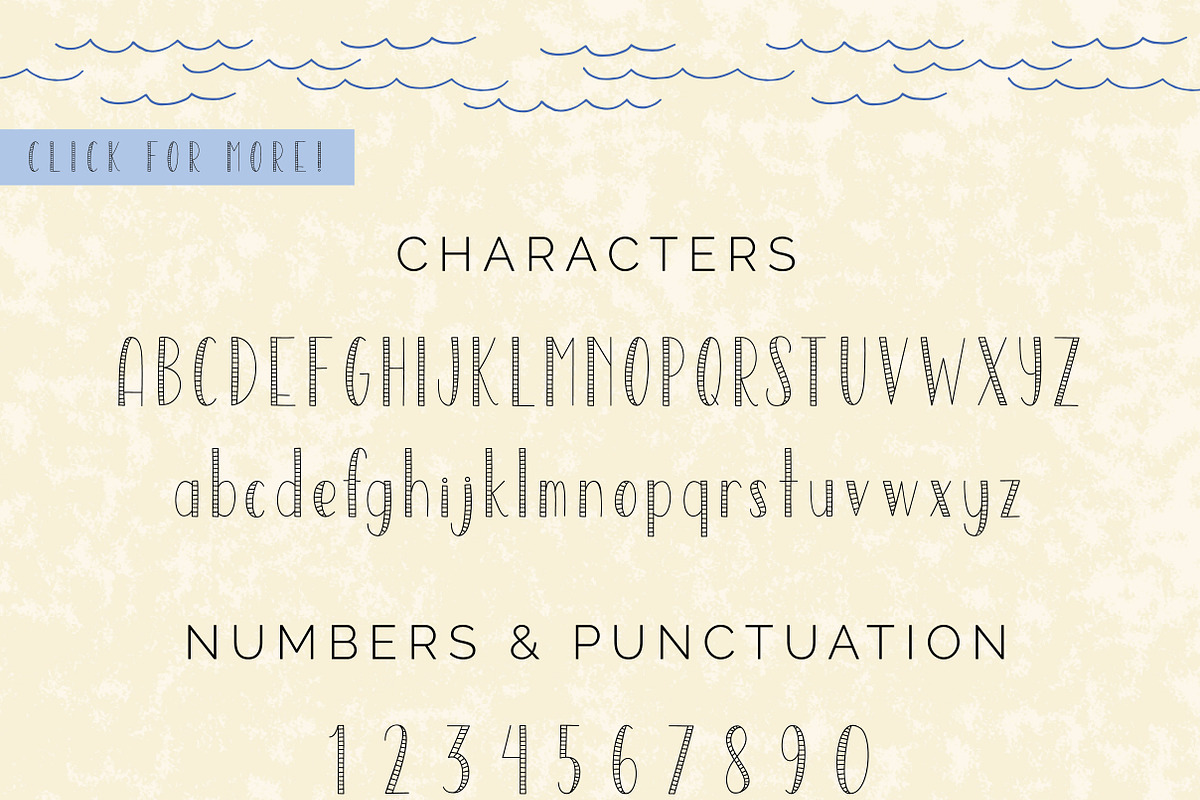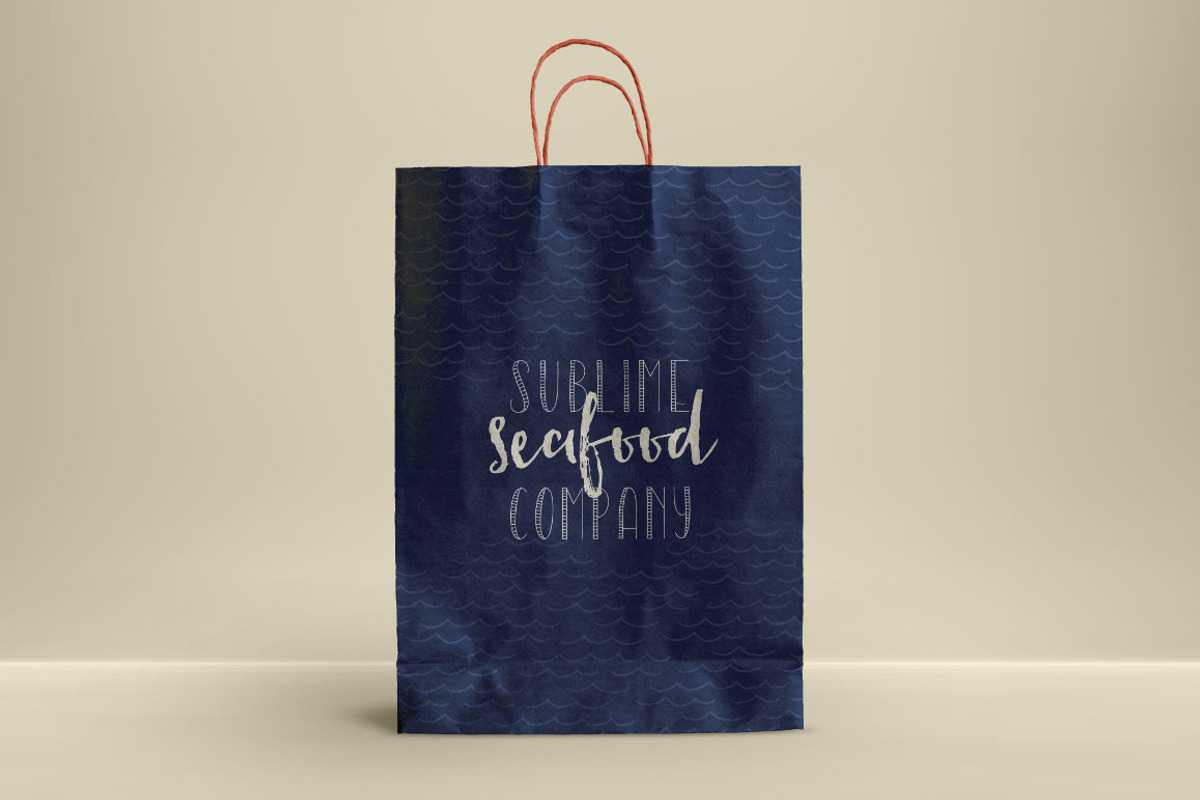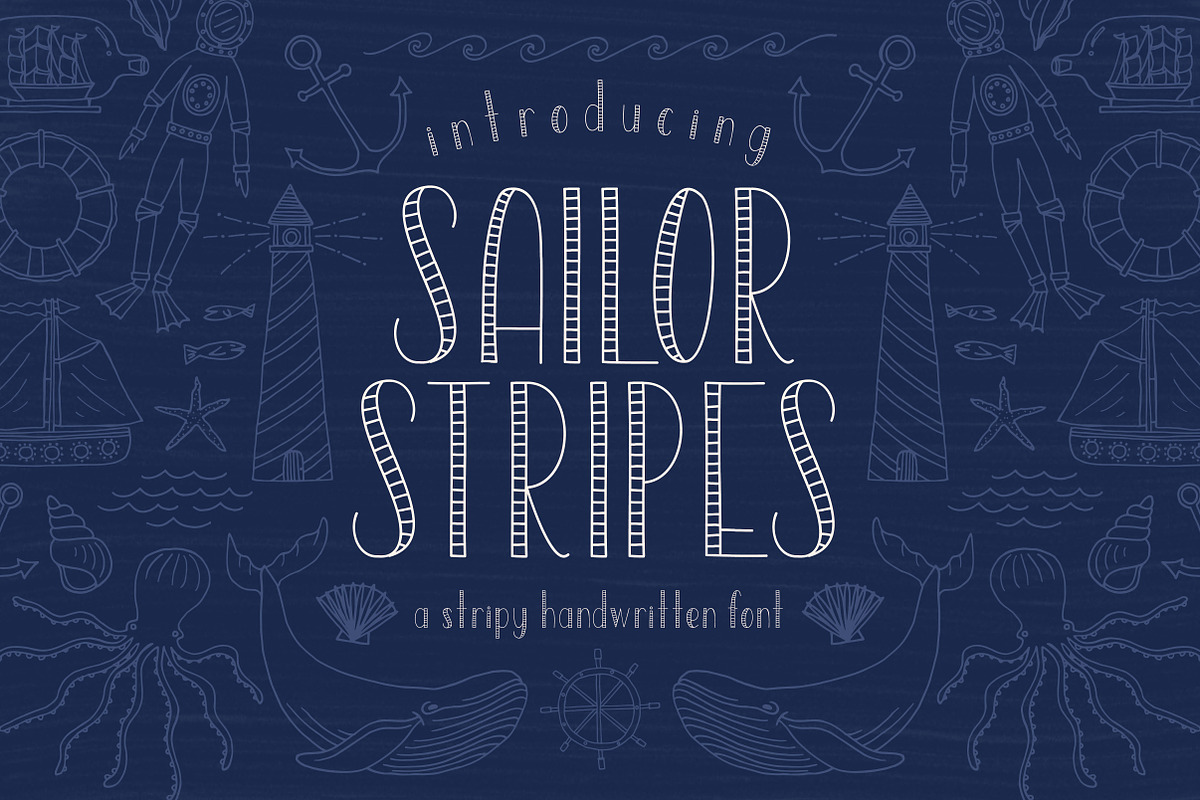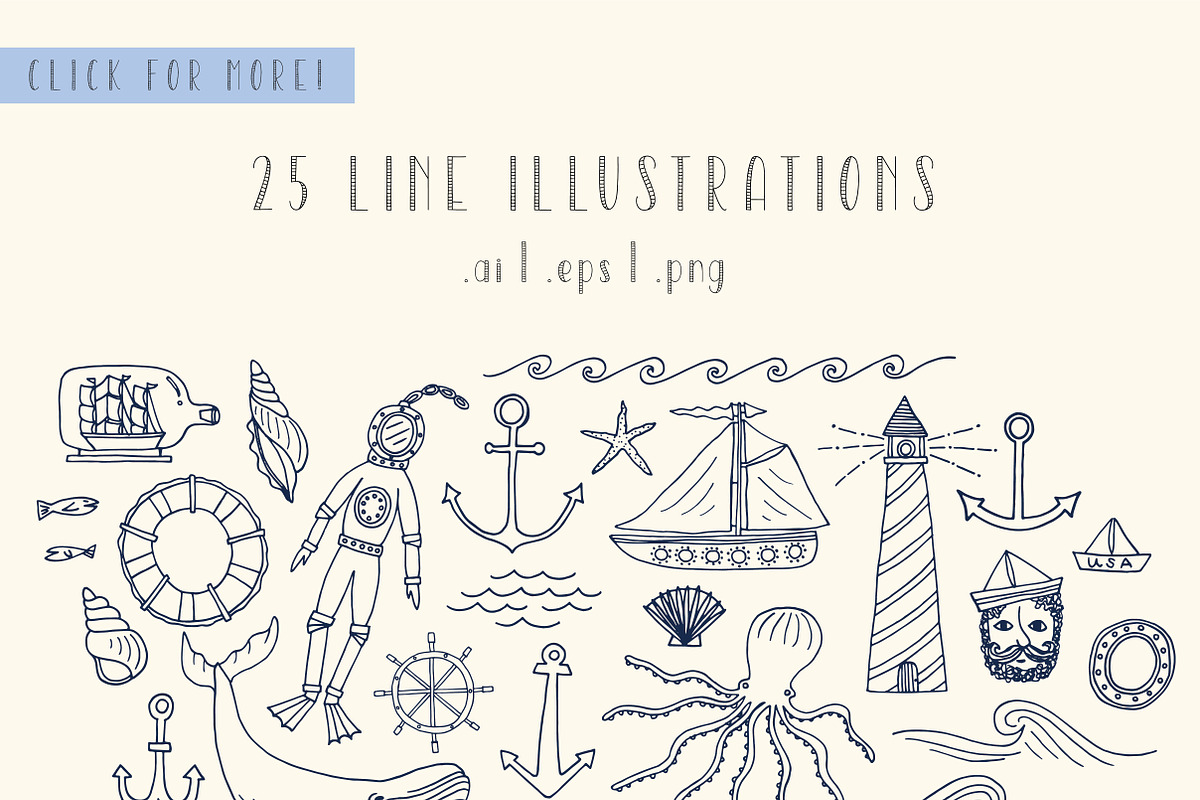
Sailor Stripes Font + Illustrations
This stripy font feels a little nautical, a little cutsie, and a whole lot of fun! Use the font for logos and cute designs, then accent it with the custom hand illustrated icons!
Sailor Stripes comes as a single font file packed full of great features:
Full set of lower and upper case letters
Punctuation and numerals
Western European support
Along with the font, enjoy a selection of 26 hand drawn line illustrations, and 26 full color illustrations. They are fun and quirky and full of nautical charm! The illustrations come in an illustrator file, .eps file and as individual .png files with transparent backgrounds. Use these illustrations to create your own prints, logos, cards, and more!